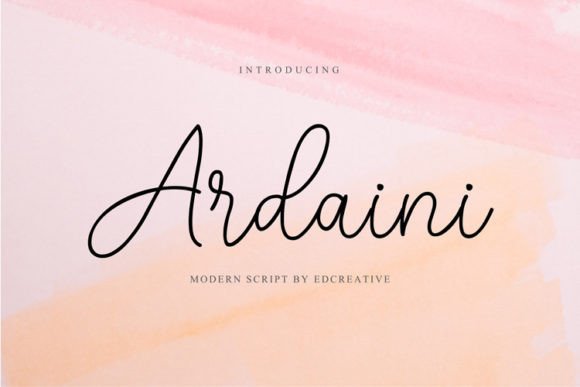
Journey into the realm of Ardaini Font, where elegance and creativity harmoniously intertwine. A script font borne from the depths of modern calligraphy, Ardaini captures the essence of sophistication with its rhythmic flow and graceful strokes. Immerse yourself in a world of boundless creativity as you unveil the captivating allure of Ardaini Font.
Crafted with meticulous attention to detail, Ardaini Font exudes an air of timeless beauty. Its enchanting curves and alluring ligatures dance across the page, beckoning you to explore new horizons of design. Whether you seek to create captivating branding projects, heartfelt invitations, visually striking web graphics, or heartfelt greeting cards, Ardaini Font will elevate your creations to new heights.
Unleash your inner artist and let your imagination run wild as you discover the endless possibilities of Ardaini Font. Let the flowing lines of Ardaini guide your hand as you paint your thoughts and emotions onto the digital canvas. Transform ordinary words into breathtaking works of art, evoking a symphony of emotions with every letter.
With Ardaini Font, you possess the key to unlock a world of creativity. Its PUA encoding grants you effortless access to a vast array of glyphs, empowering you to weave intricate designs and unleash your boundless imagination. The possibilities are limitless, bound only by the confines of your own creativity.
Indulge in the enchanting world of Ardaini Font. Let its elegance captivate your senses and ignite the flames of your creativity. Embark on a journey of self-expression, leaving an indelible mark on the hearts and minds of your audience.